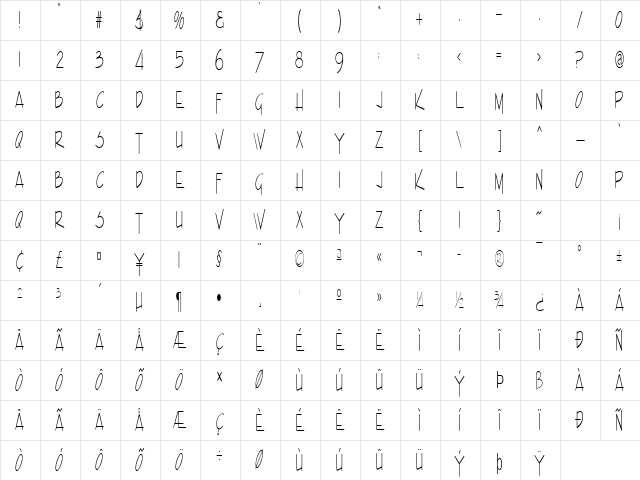
Enview Xtra Light Normal
Design Context for Enview Xtra Light
Enview Xtra Light is a composed and adaptable typeface that performs quietly and consistently across a wide range of design contexts. Its slender proportions lend an understated elegance to any composition.